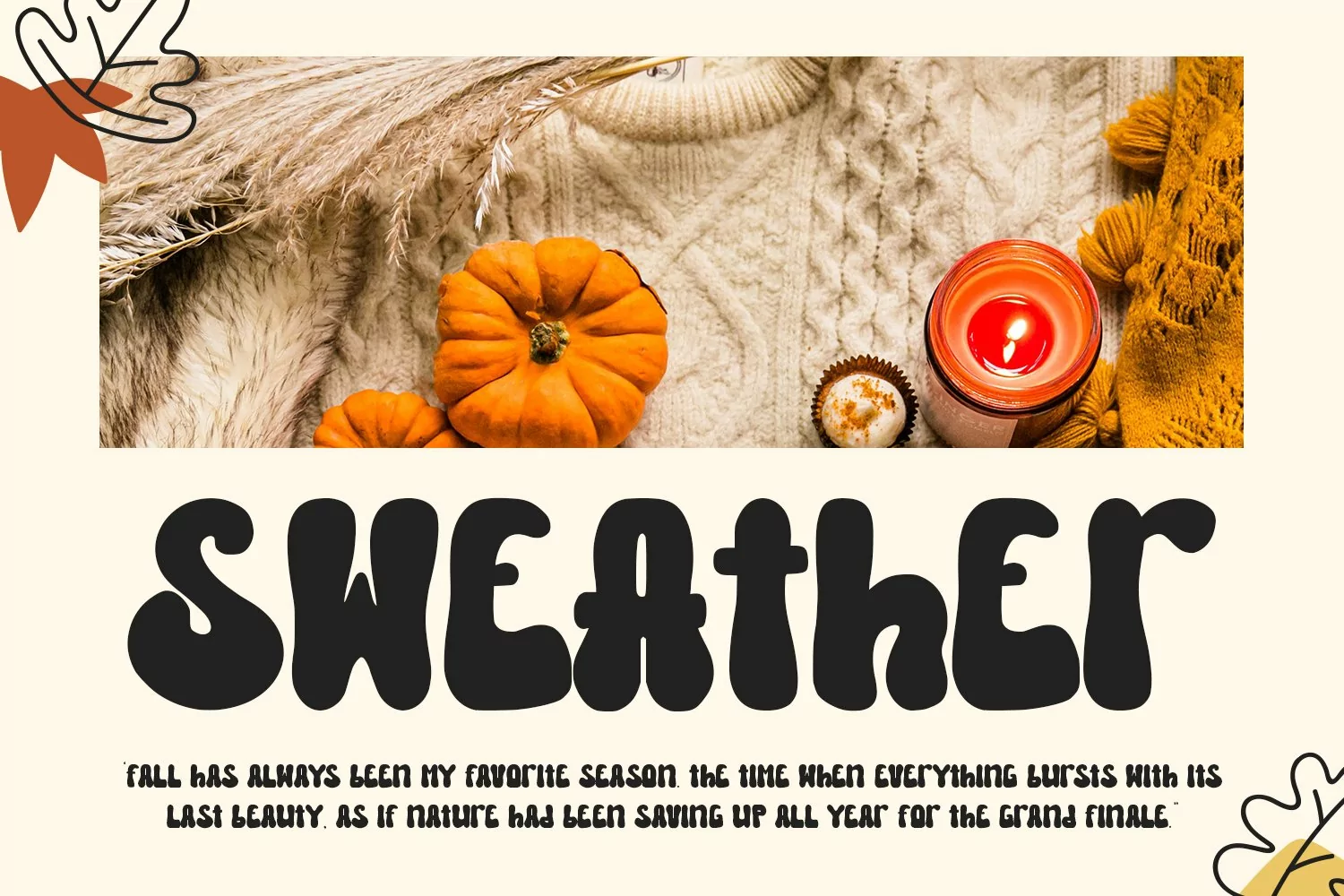
Fall Season - Groovy Display Font that contain lowercase, uppercase, symbol, and also support multi language. There’s a lot ligatures in this font. This Font also comes with ligatures, alternates and many more. this font suitable for fashion, branding, catalog and other design what you want.